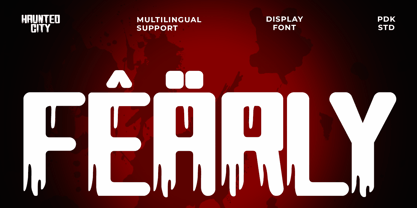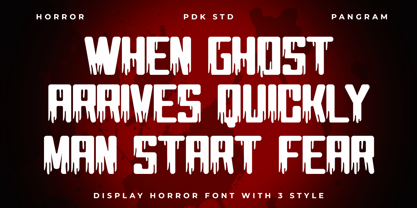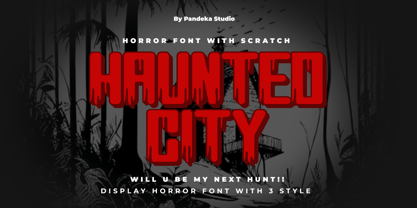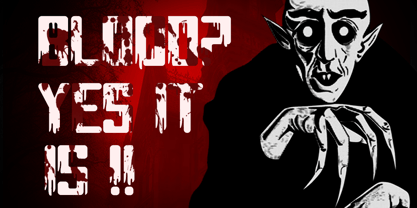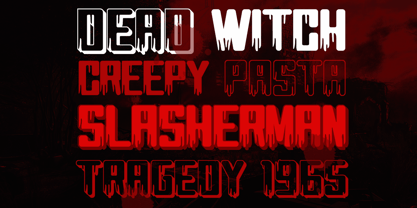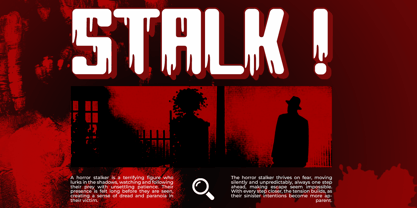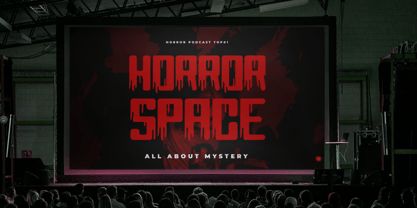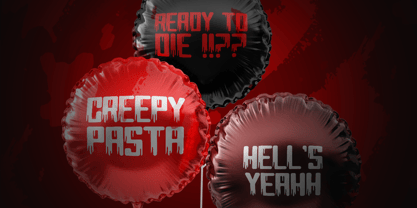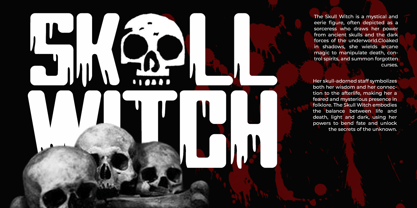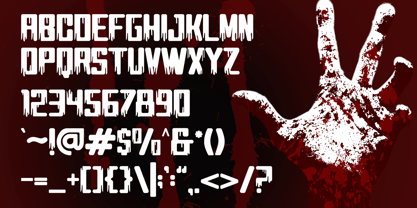
Haunted City
by Pandeka Studio
The Haunted City Font Family was designed by Sagara Nararya and published by Pandeka Studio. Haunted City contains 3 styles and family package options. More about this family
Introducing Haunted City - a terrifying horror typeface designed to send chills down your spine!
Haunted City is perfect for creating a dark and eerie atmosphere, making it ideal for Halloween celebrations and other fear-filled occasions. Its three styles — Regular, Outline, and Extrude — provide versatility and depth to your designs, adding that sinister touch.
Whether you're designing party invitations, posters, merchandise, or website themes for Halloween, Haunted City guarantees to amplify the suspense and thrill. Dare to enter the Haunted City, and let the fear begin!
• Regular, Outline and Extrude Style
• Unique letterforms
Designers: Sagara Nararya
Foundry: Pandeka Studio